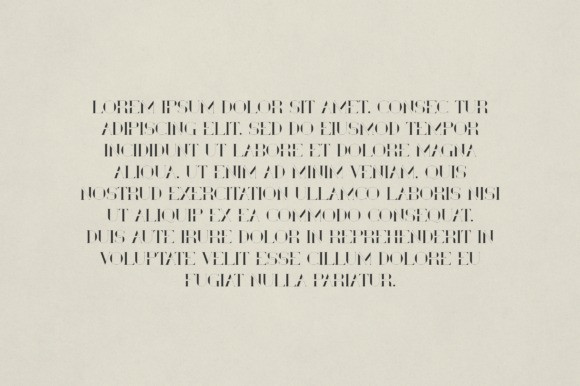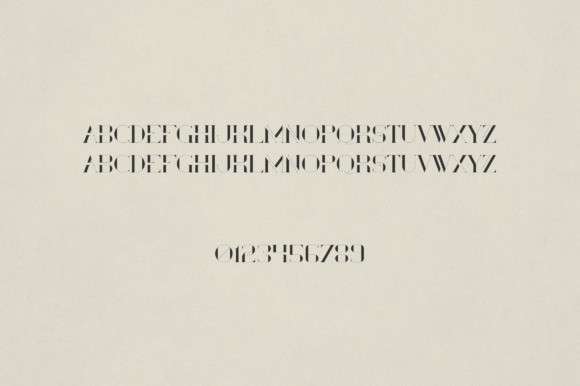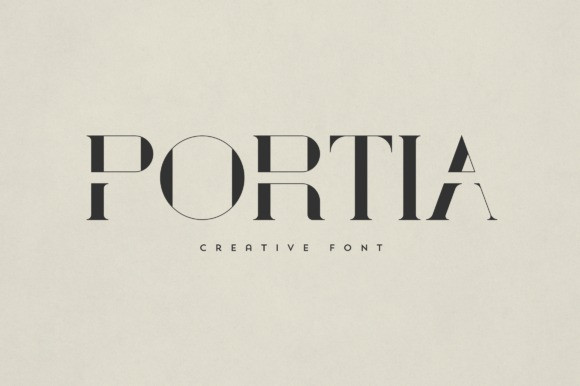
Portia Font
Portia Font is an elegant and versatile serif font that will make your typography truly unique! It will enchant every logo, branding, headline, or plain text!